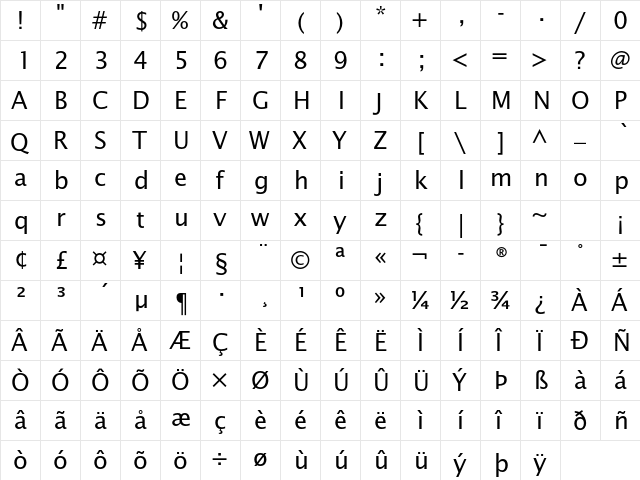
Lucida Sans Std Roman
| Designer | Kris Holmes, Charles Bigelow |
Design Context for Lucida Sans Std Typeface
Lucida Sans Std takes a measured approach to typography — its balanced proportions and neutral character make it a reliable workhorse for both digital and print work.